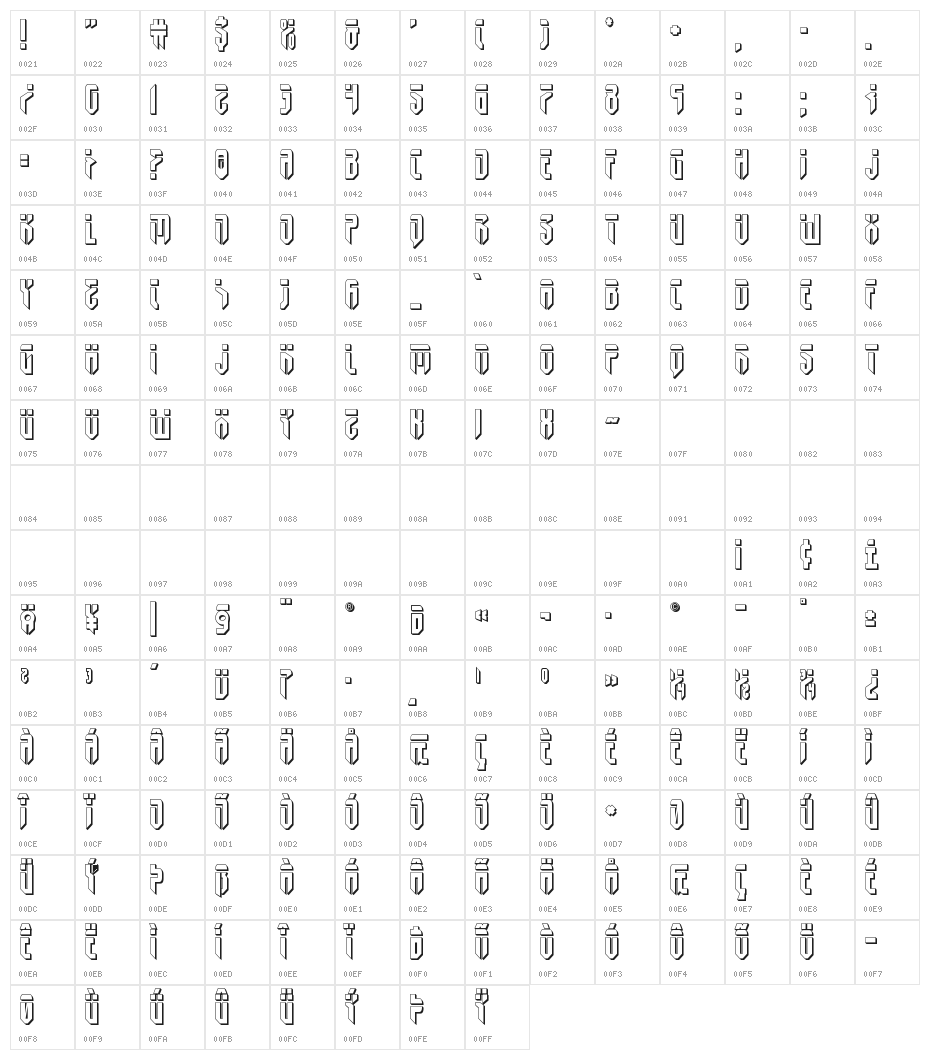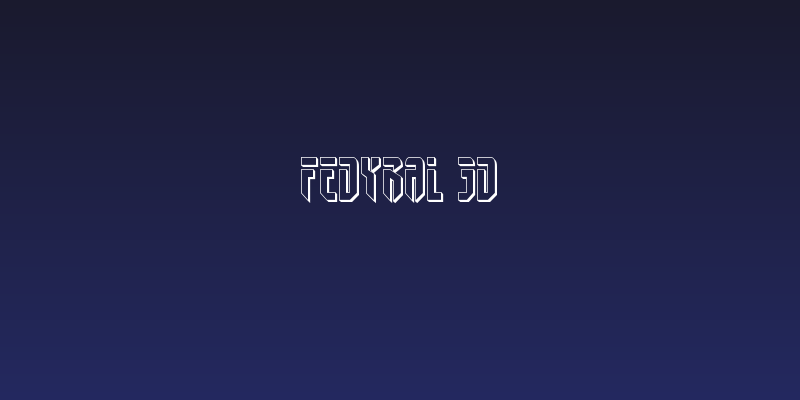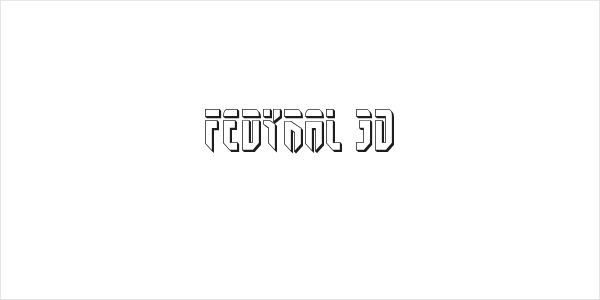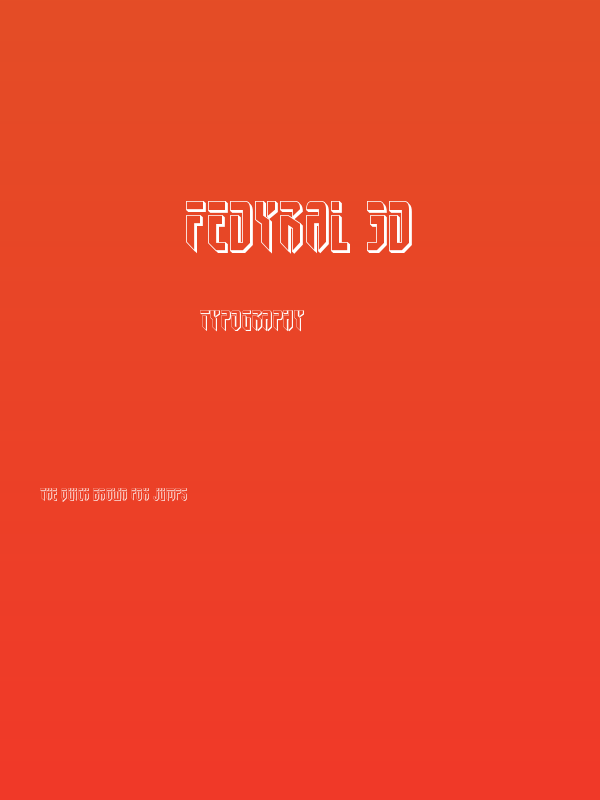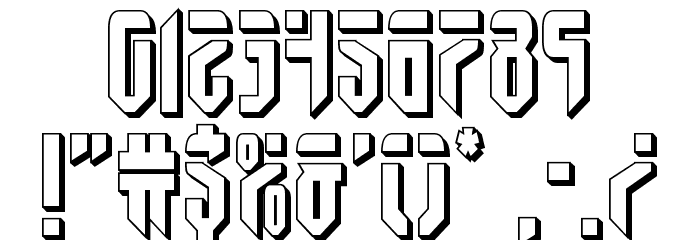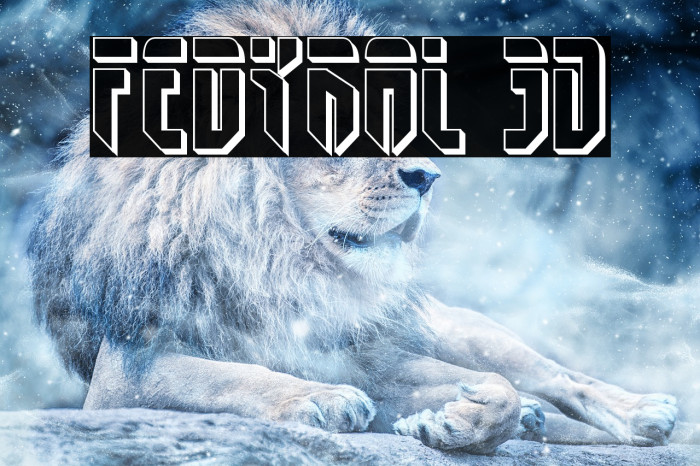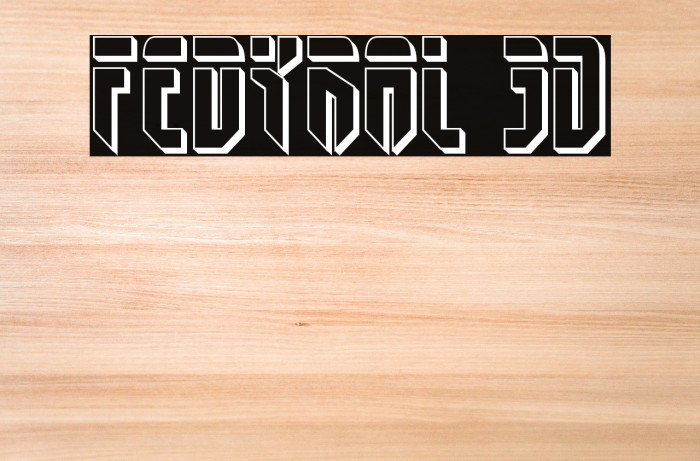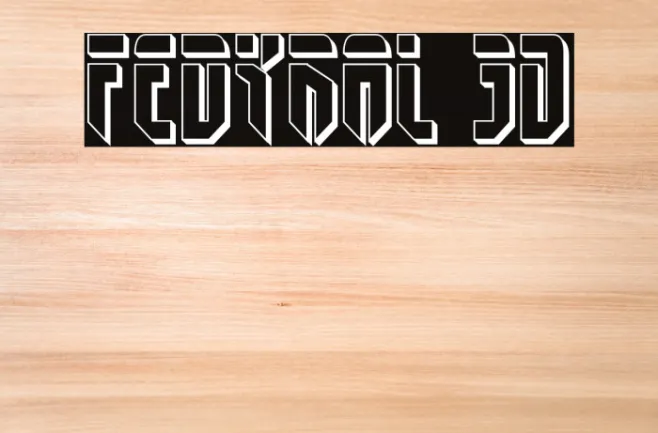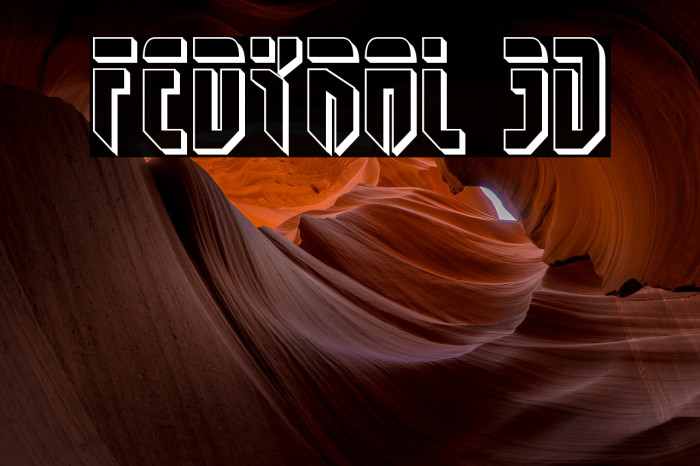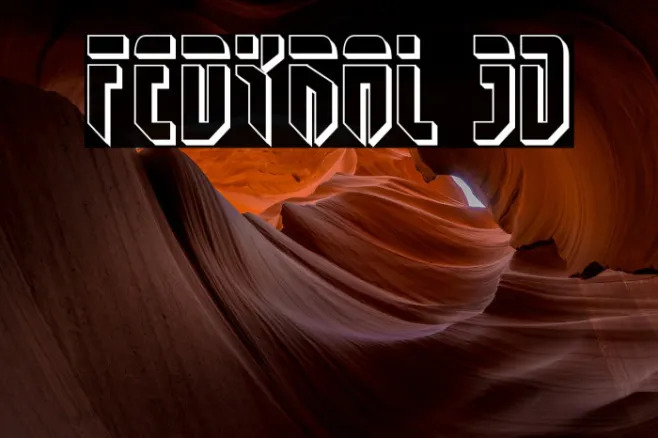
Fedyral 3D Font
Fedyral 3D Description
This font features a bold, three-dimensional design with a futuristic and geometric aesthetic. The characters have a blocky, angular appearance with a shadow effect that gives them depth and a sense of movement. The uppercase letters are particularly striking, with sharp edges and a consistent height that creates a uniform look. The lowercase letters maintain the same style, ensuring cohesion across different text cases. Numbers and special characters are designed to match the overall theme, making them suitable for a variety of creative applications. The font's unique style makes it ideal for projects that require a modern and eye-catching typeface.
| Proposed Projects | Ideal for video game titles, sci-fi movie posters, tech branding, and futuristic event flyers. |